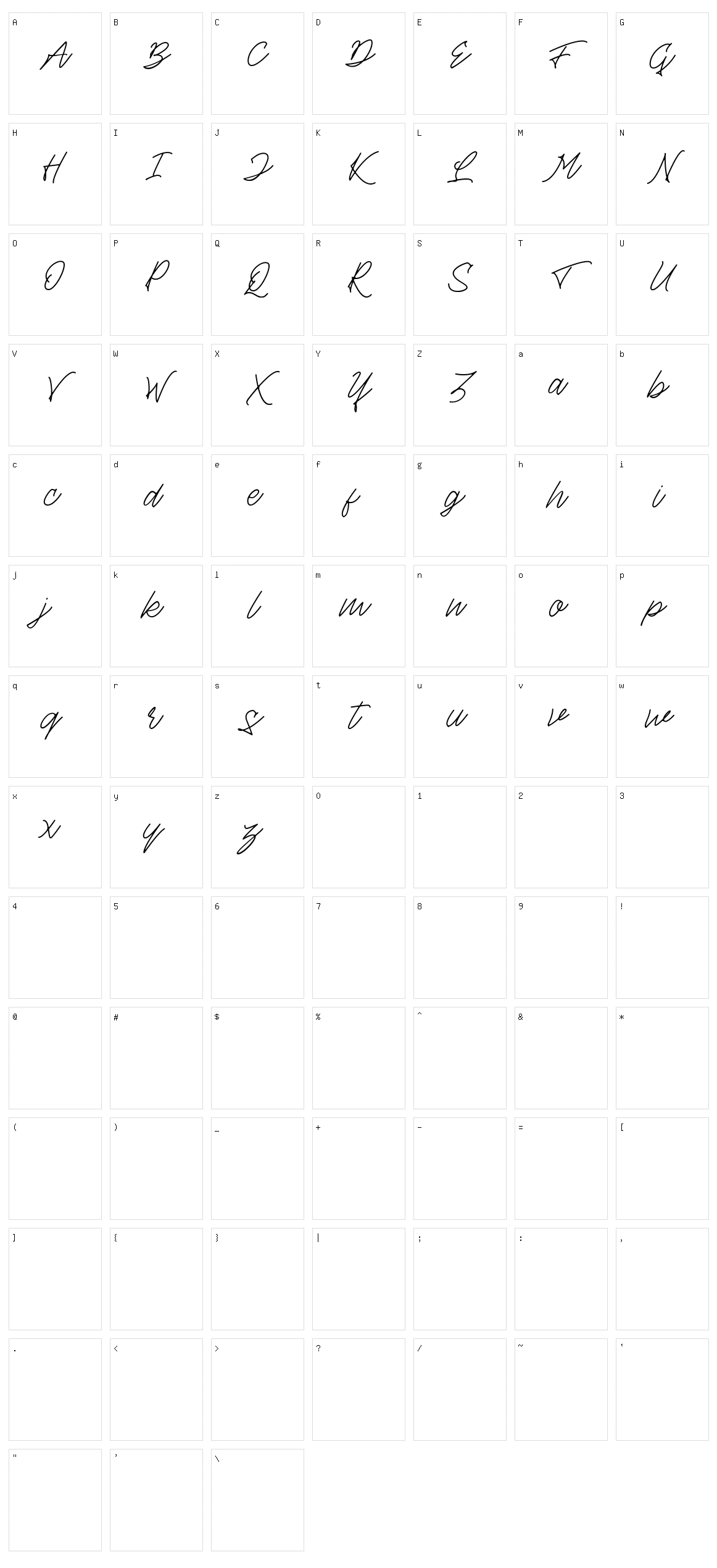
The free font Theandous is carefully designed by Masanis Studio, showcasing a thoughtful balance of creativity and usability and falls under the Script font style. When you download the ZIP file, it contains only 29.68 KB of font files, making it lightweight and quick to download. Please review the license details below to understand permitted usage and distribution rights. If license information is not available, we recommend using this font for personal projects only or contacting the author directly for commercial usage permissions.